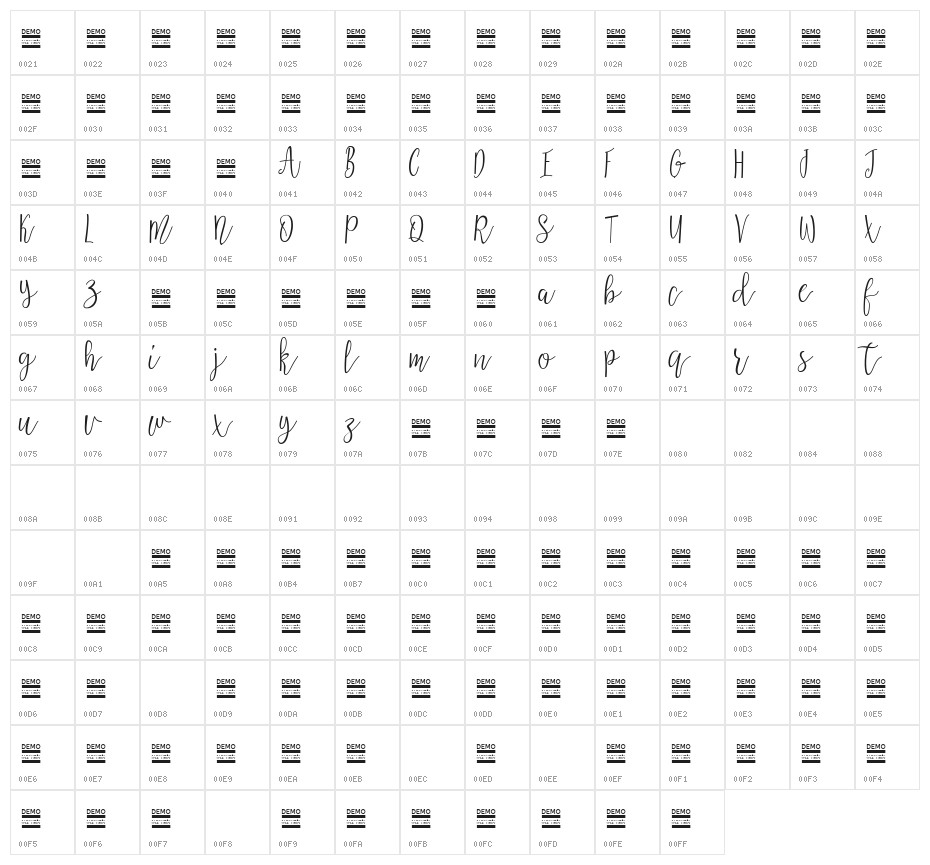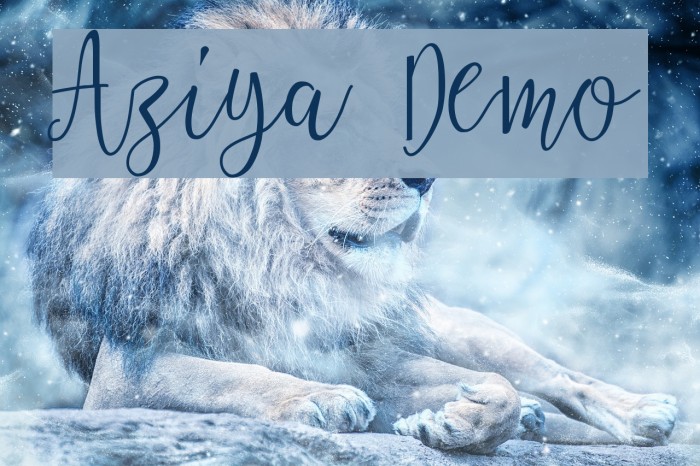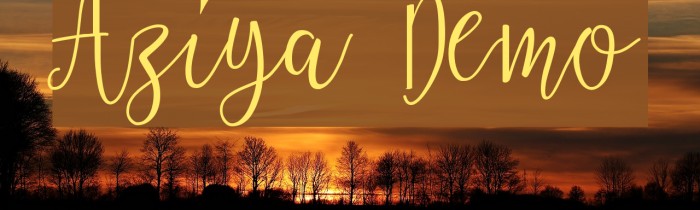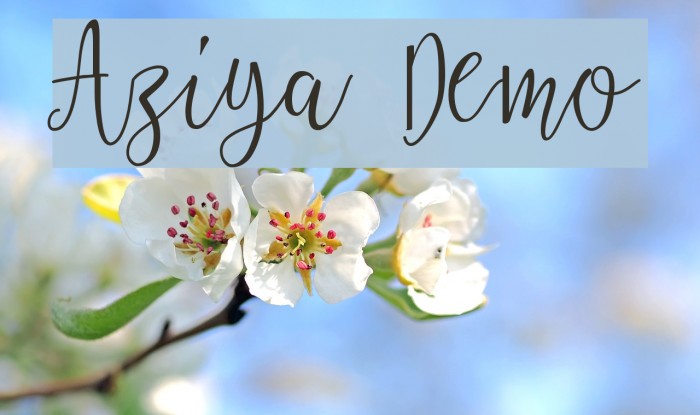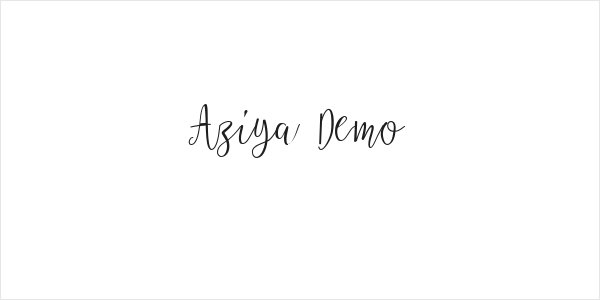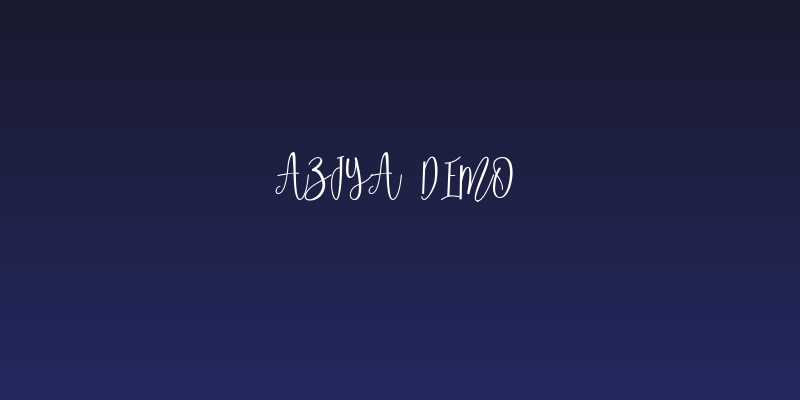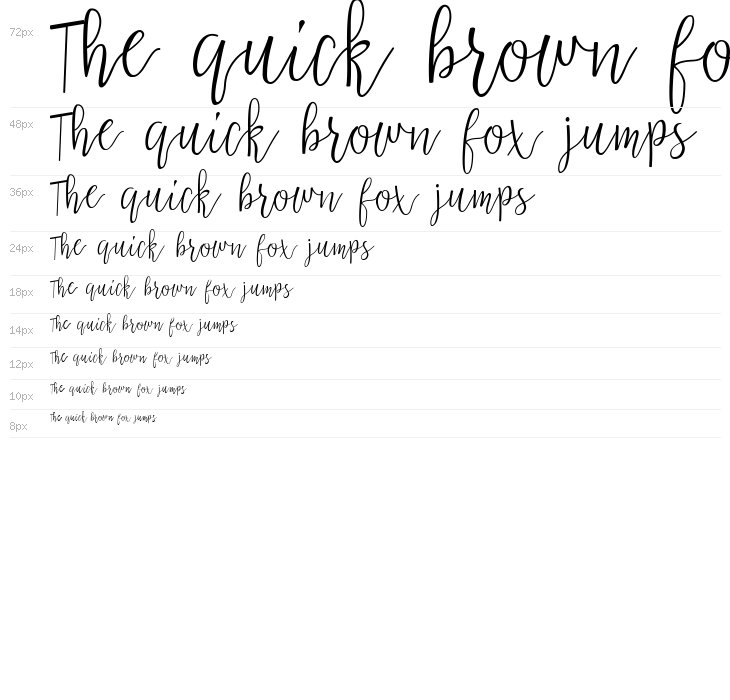
Aziya Demo Font
Aziya Demo Description
This font features a flowing, cursive style with elegant, sweeping lines that give it a handwritten appearance. The uppercase letters are tall and slender, with distinctive loops and curves that add a touch of sophistication. The lowercase letters maintain a consistent style, with smooth transitions and a slightly playful character. The font exhibits a modern calligraphic influence, making it suitable for projects that require a personal and artistic touch. The numbers and special characters are designed to complement the letters, maintaining the overall aesthetic. This font is ideal for creative projects where a personal, elegant touch is desired.
| Proposed Projects | Ideal for wedding invitations, greeting cards, branding, and social media graphics. |